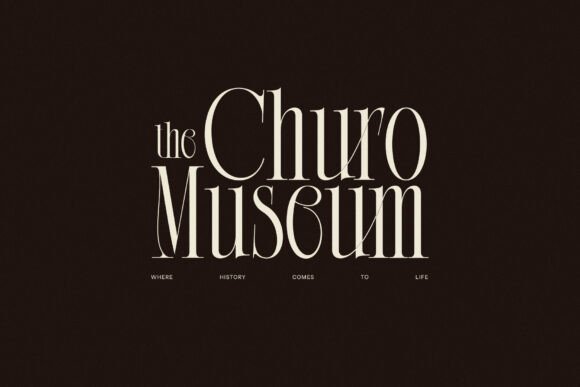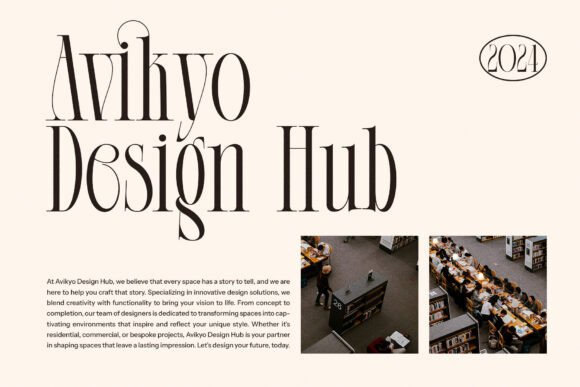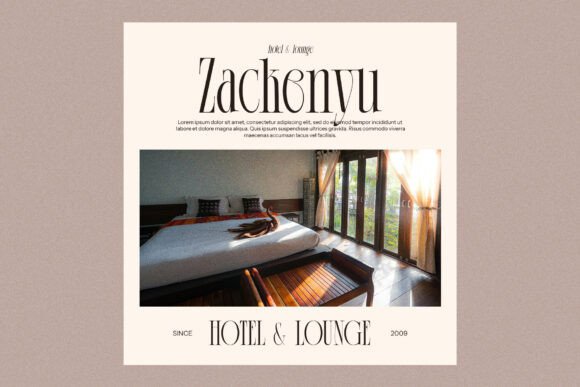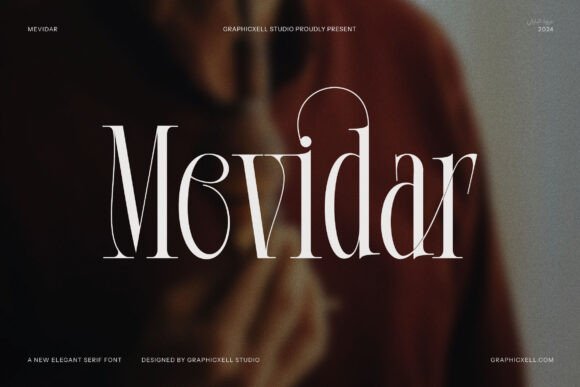
Introduction to Mevidar Font
Mevidar is a sophisticated ligature serif.
This typeface has been made carefully to make sure it’s premium quality and luxury feel The ligatures make this typeface unique and stand out rather than the regular serif font.